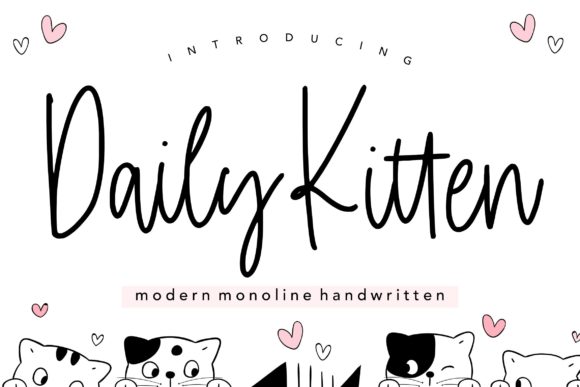
Introducing Daily Kitten Font: The Playful Script Font That Will Add a Touch of Whimsy to Your Designs
In a world where uniformity reigns supreme, Daily Kitten Font emerges as a breath of fresh air, inviting you to embrace the beauty of individuality. This charming script font, lovingly crafted by the talented Balpirick, captures the essence of playfulness and spontaneity, promising to transform your designs into captivating works of art.
Daily Kitten Font exudes a relaxed and informal style, reminiscent of handwritten notes exchanged between dear friends. Its graceful strokes and whimsical characters evoke a sense of nostalgia, transporting you to simpler times when life's moments were savored and laughter flowed freely.
With Daily Kitten Font as your creative companion, you'll discover a world of possibilities. It's the perfect choice for adding a touch of whimsy to invitations, greeting cards, posters, and social media graphics. Its versatility knows no bounds, lending itself effortlessly to branding, packaging, and even boat lettering.
Imagine the delight of your audience as they encounter your designs adorned with Daily Kitten Font. Its playful nature will capture their attention, drawing them into your message with irresistible charm. Let Daily Kitten Font be your secret weapon to create designs that resonate with your audience on a deeper level.
So, embark on this creative adventure with Daily Kitten Font and unlock a world of endless possibilities. Let your imagination soar as you weave tales of joy, laughter, and pure delight. Embrace the magic of Daily Kitten Font and transform your designs into cherished memories that will last a lifetime.
Key Features of Daily Kitten Font:
- Playful and Quirky Script Font: Exudes a sense of lightheartedness and fun.
- Handwritten Style: Evokes the charm and authenticity of handwritten notes.
- Versatile Applications: Perfect for invitations, cards, posters, social media, branding, and more.
- Emotional Appeal: Captures the essence of joy, laughter, and nostalgia.
- Endless Creative Possibilities: Unleash your imagination and create designs that resonate with your audience.